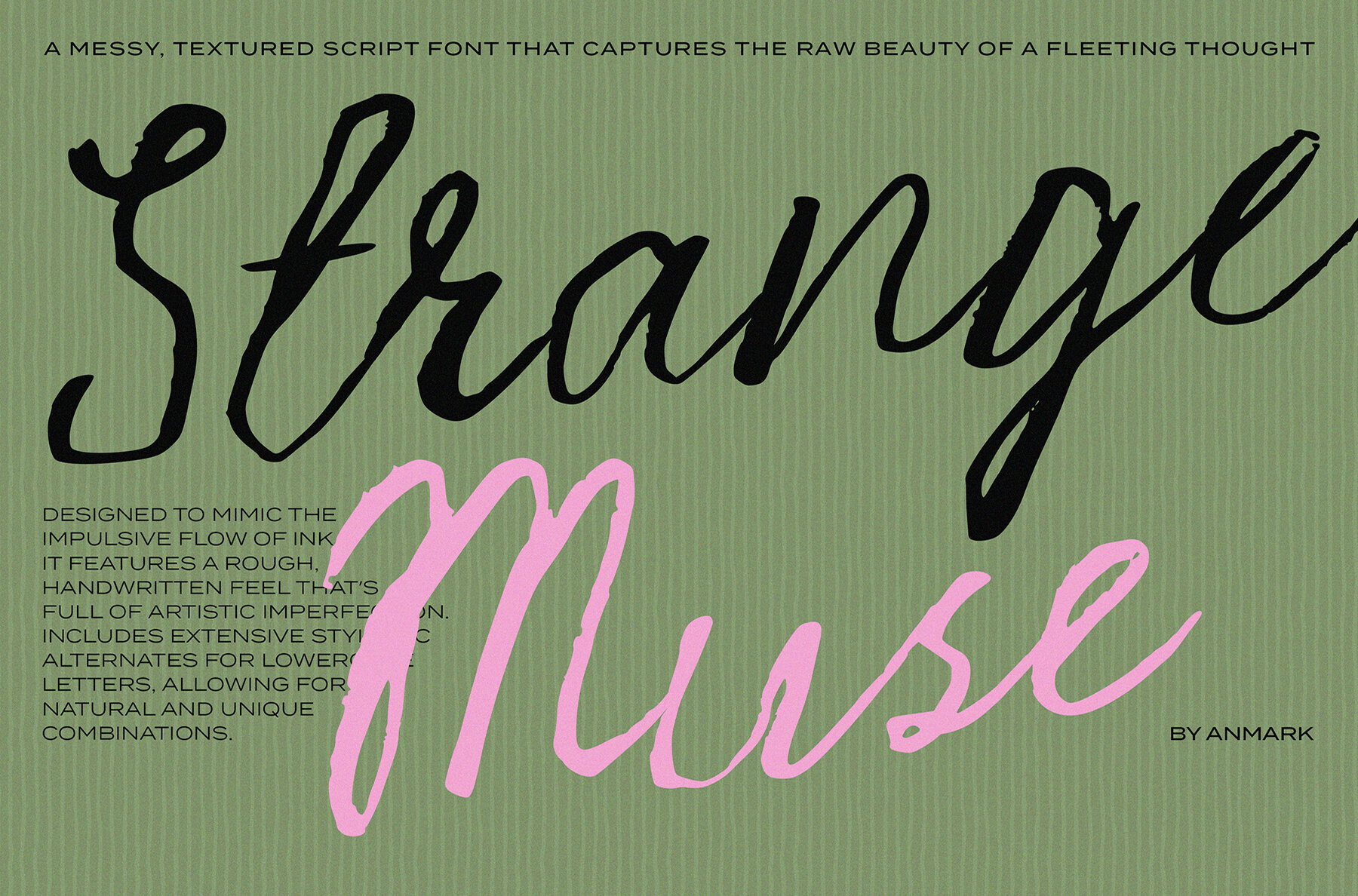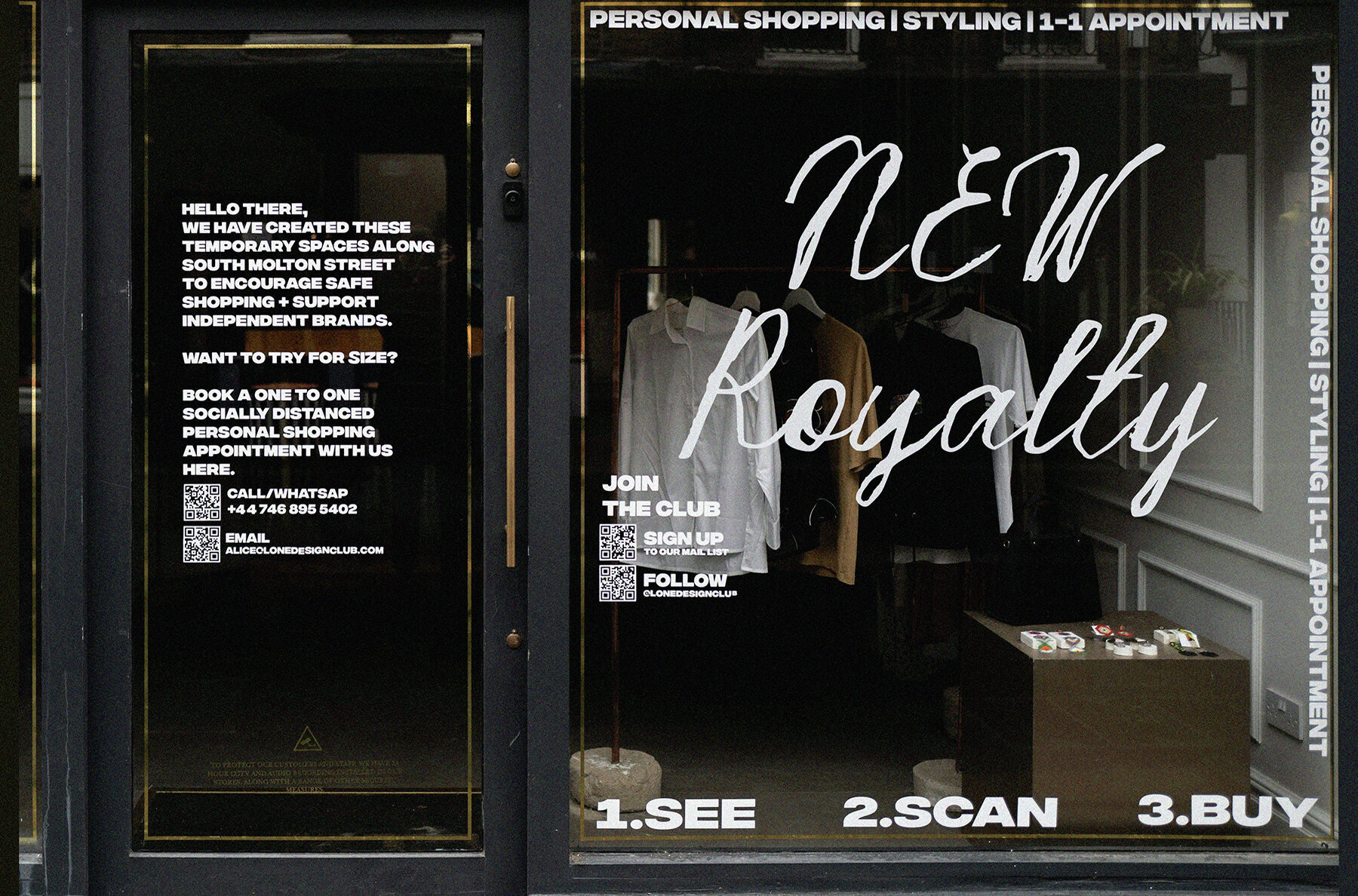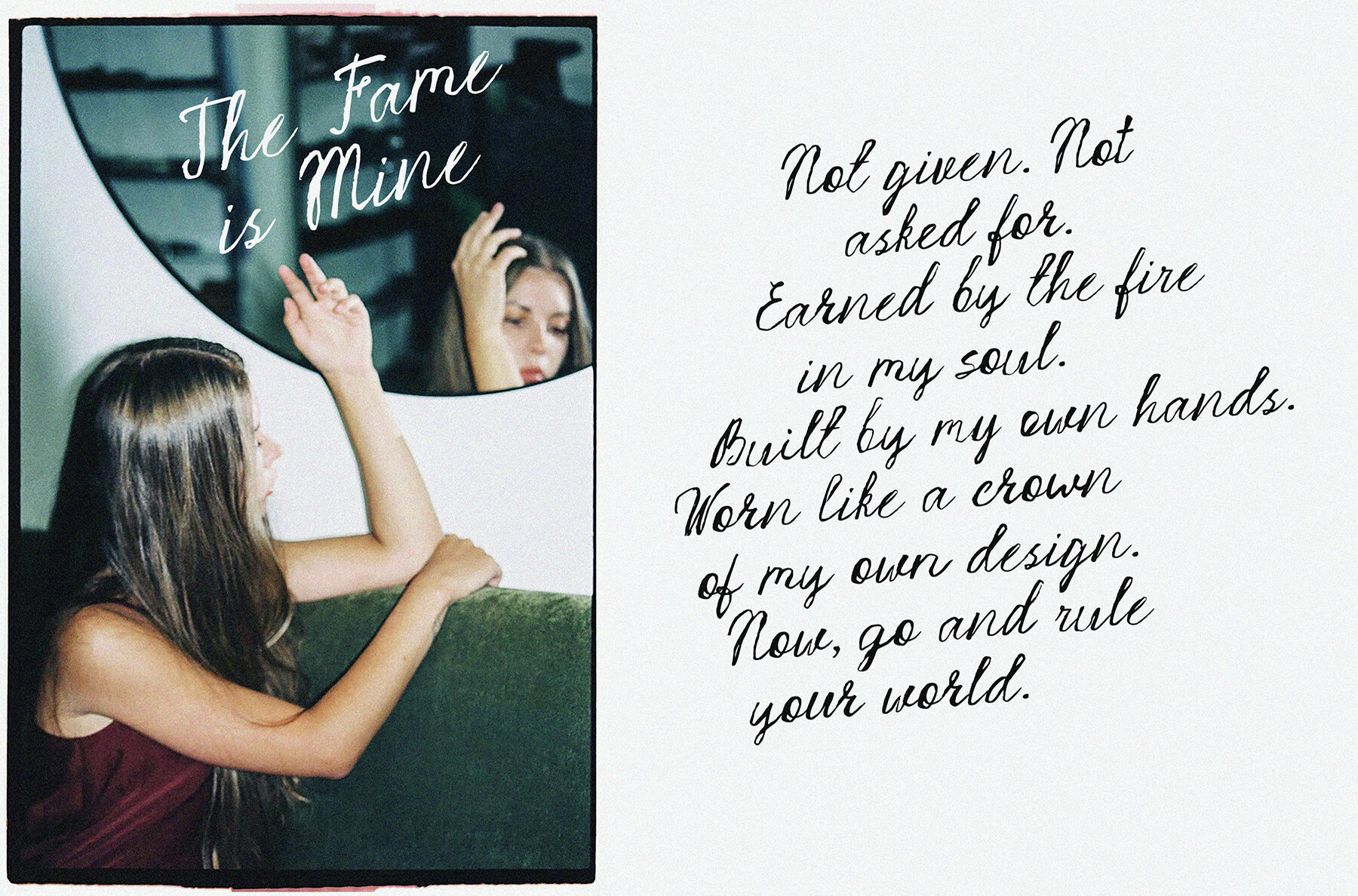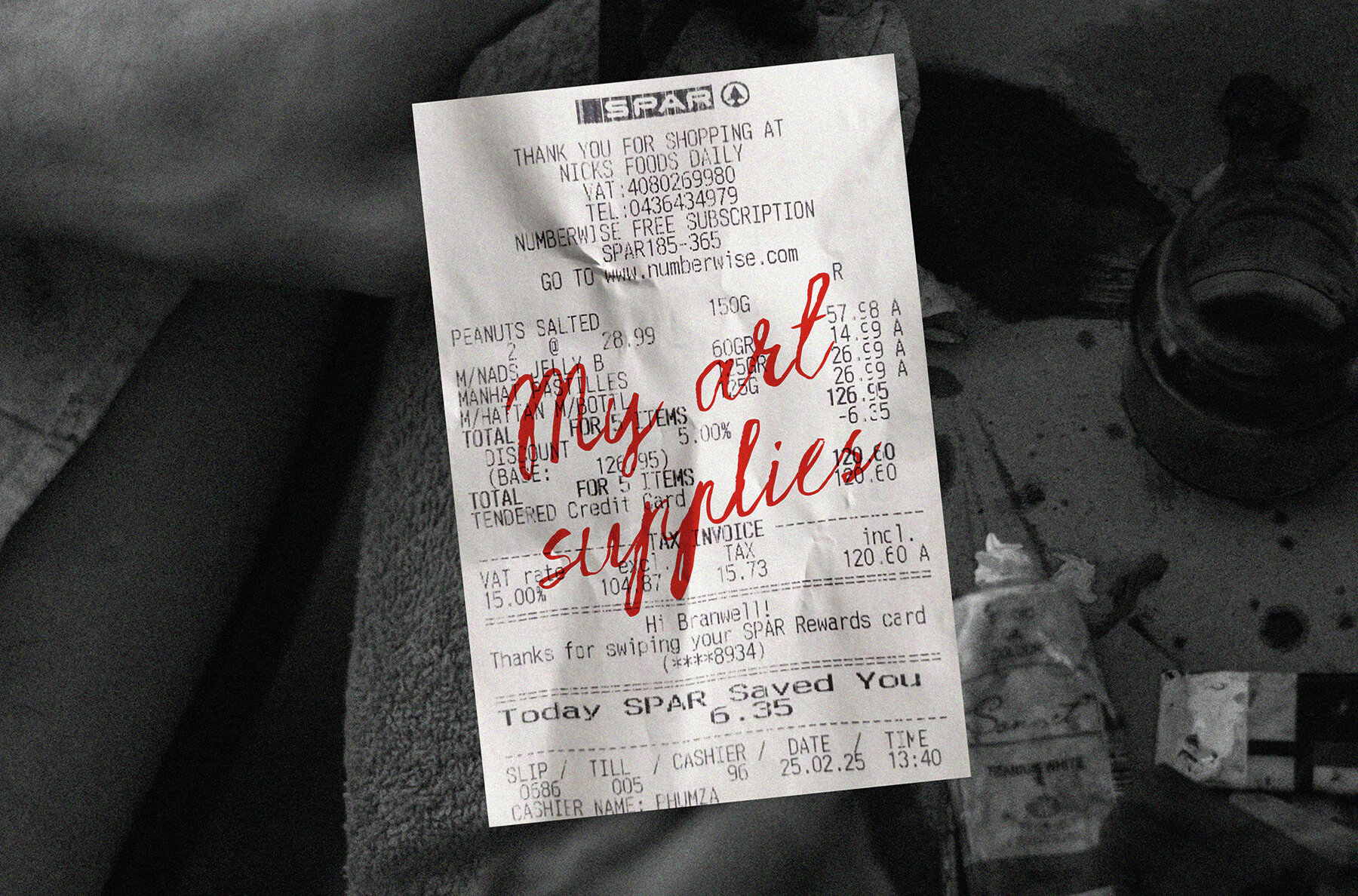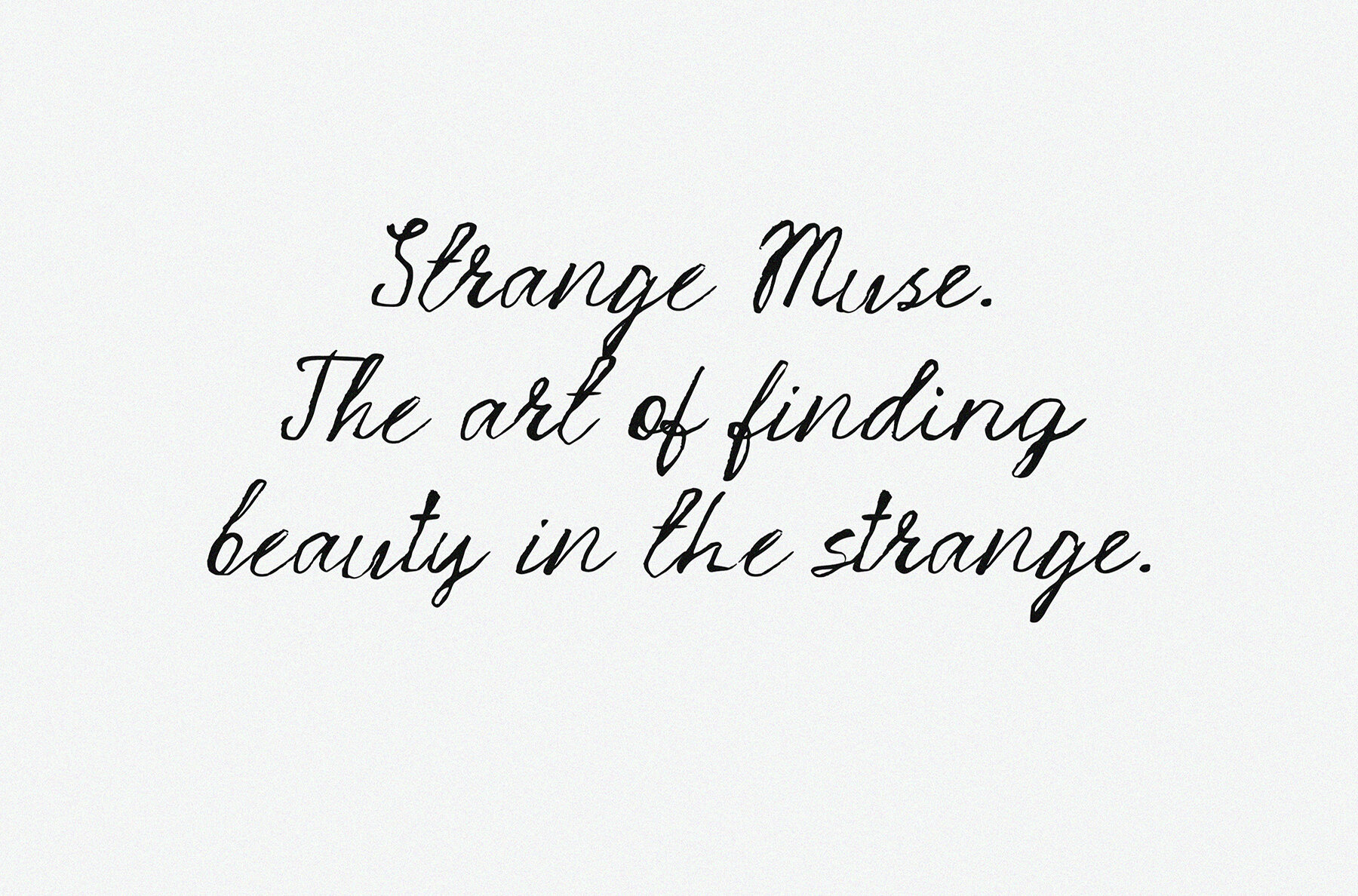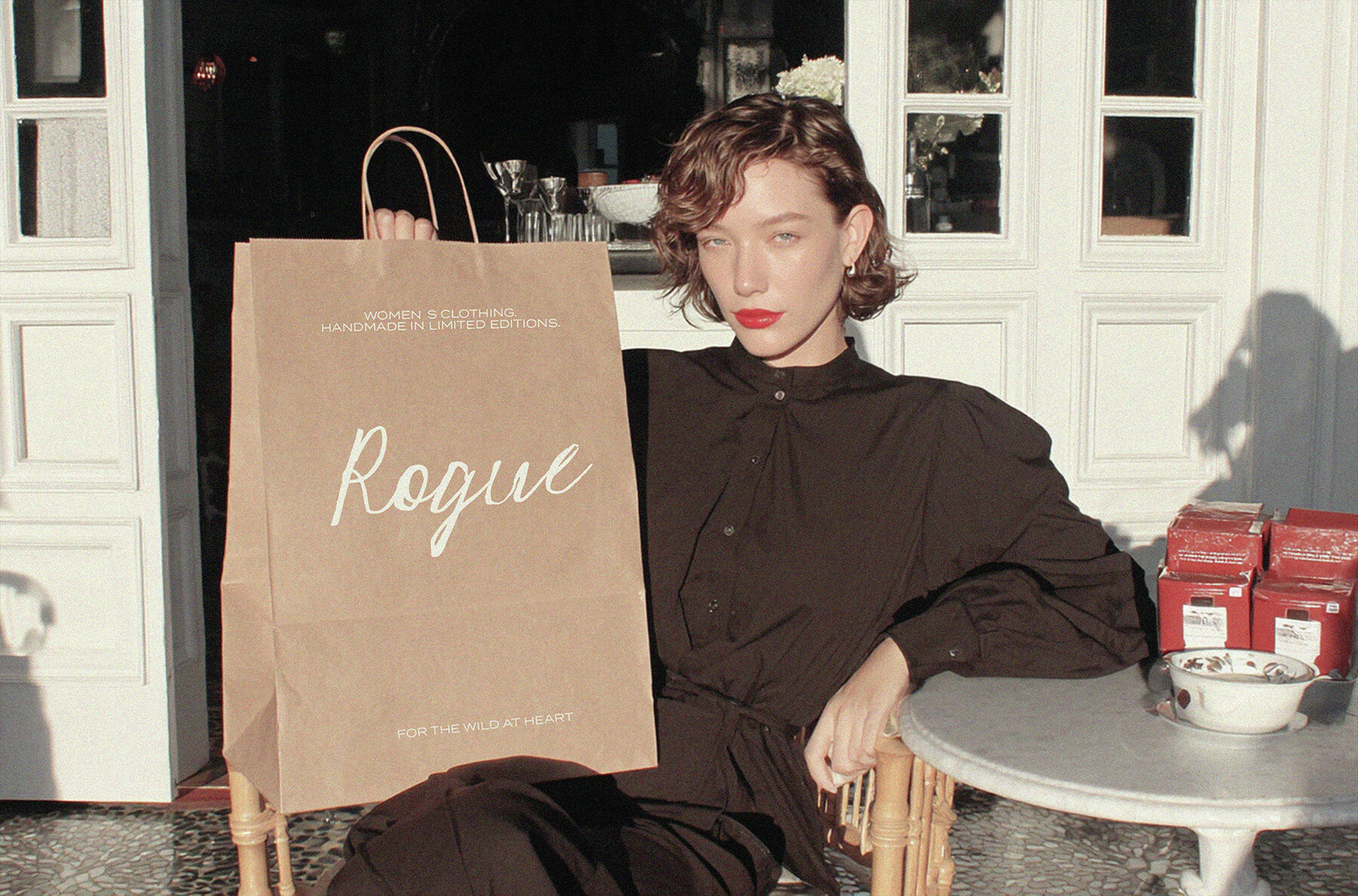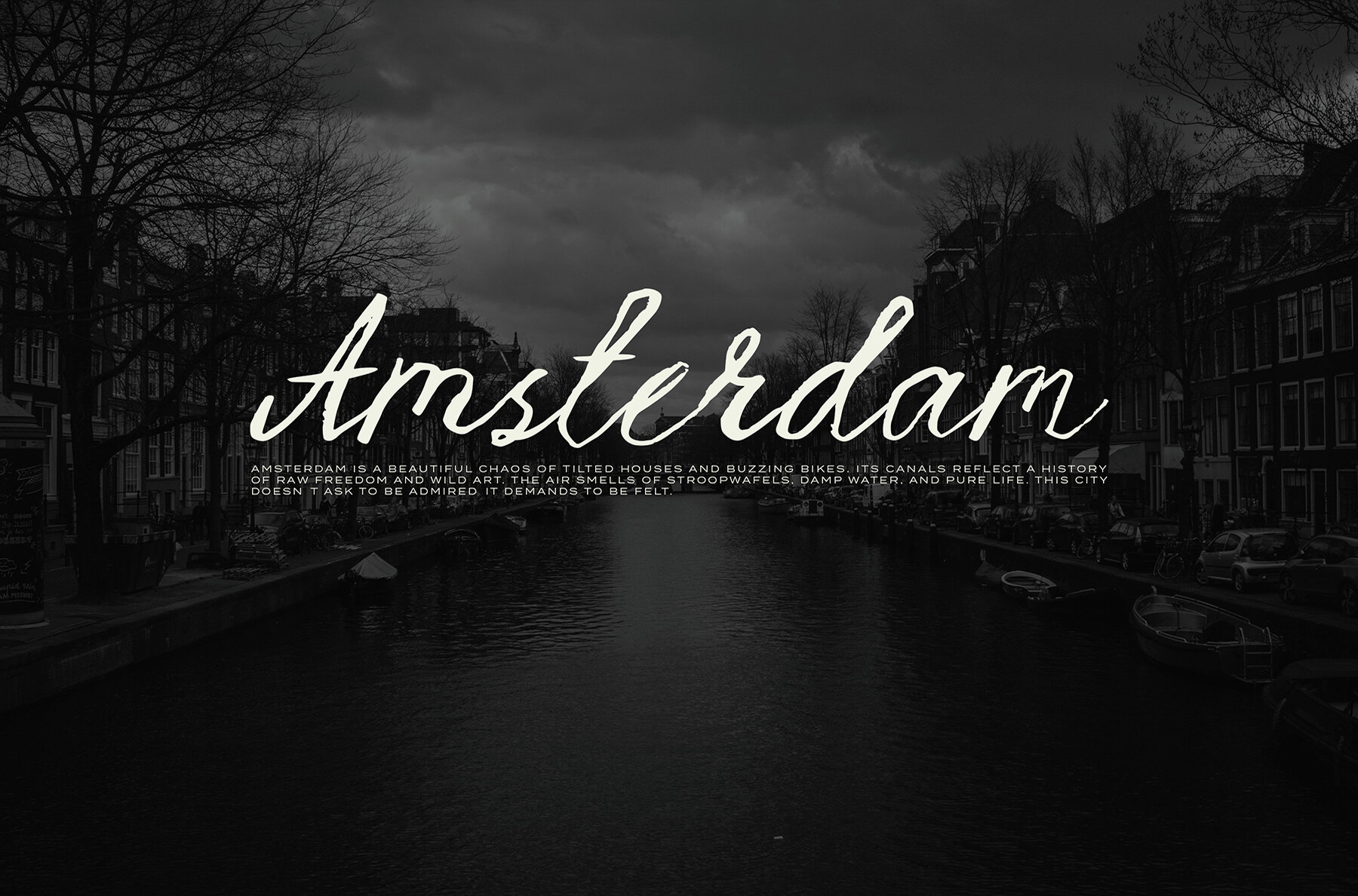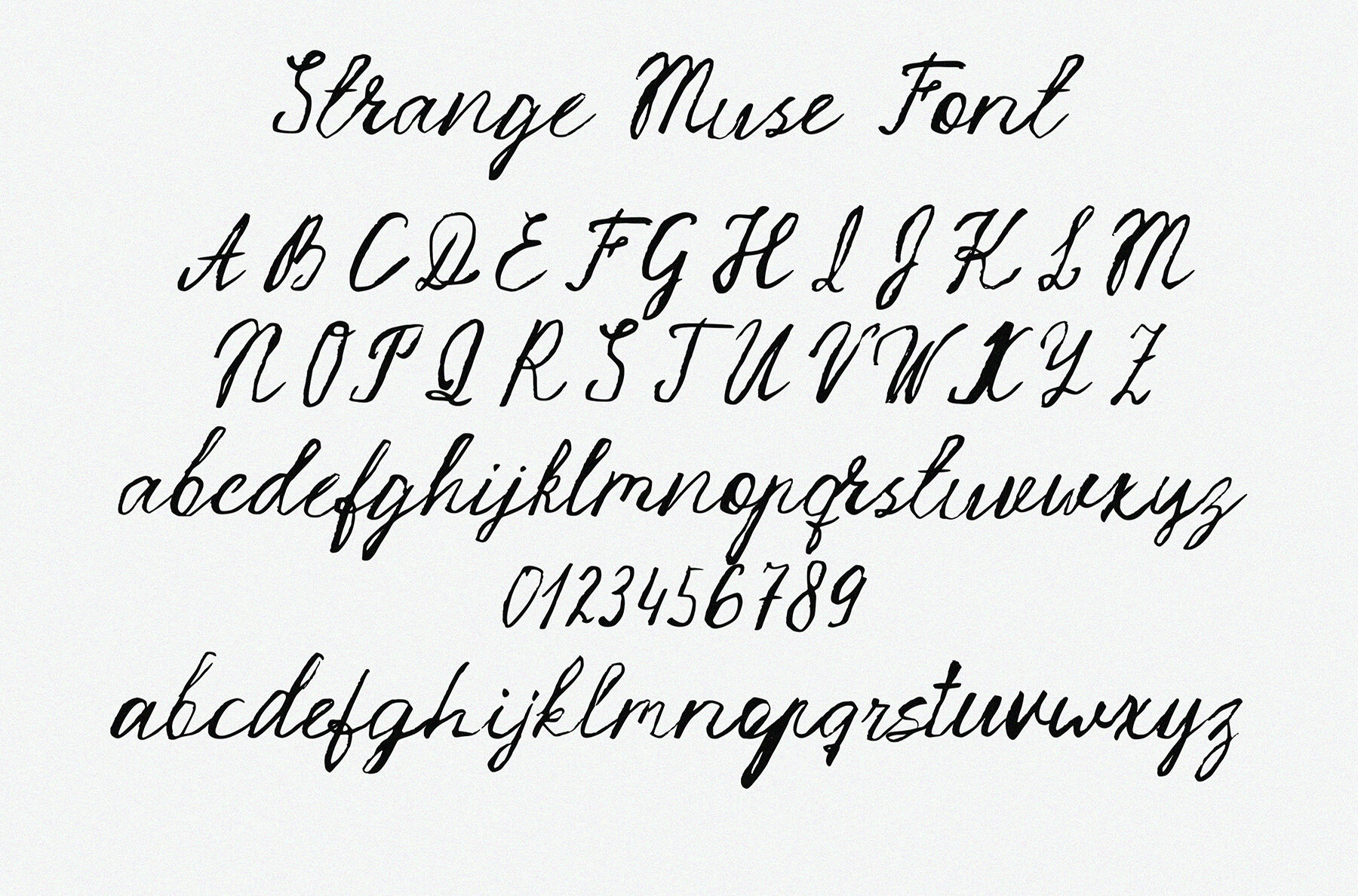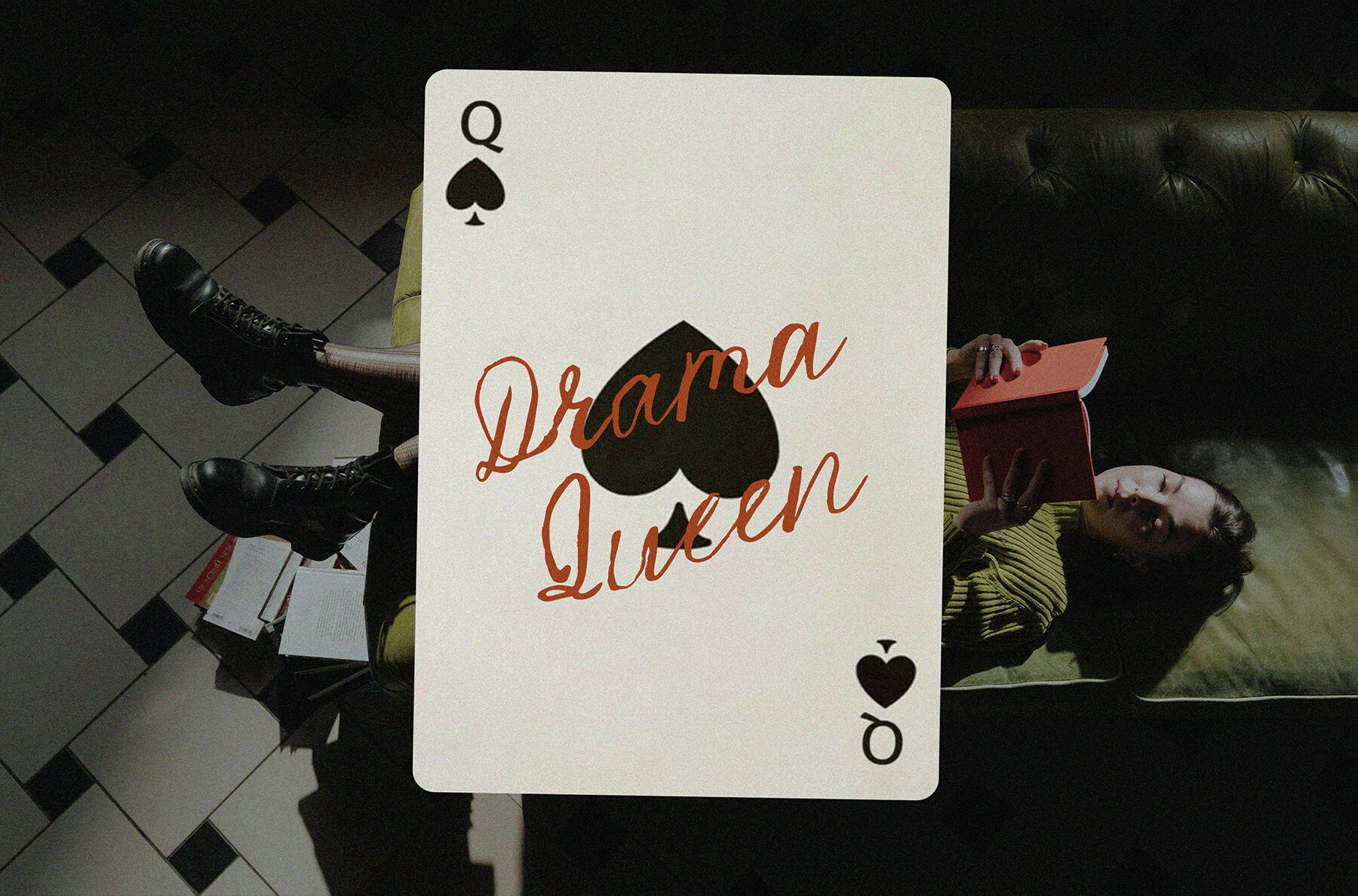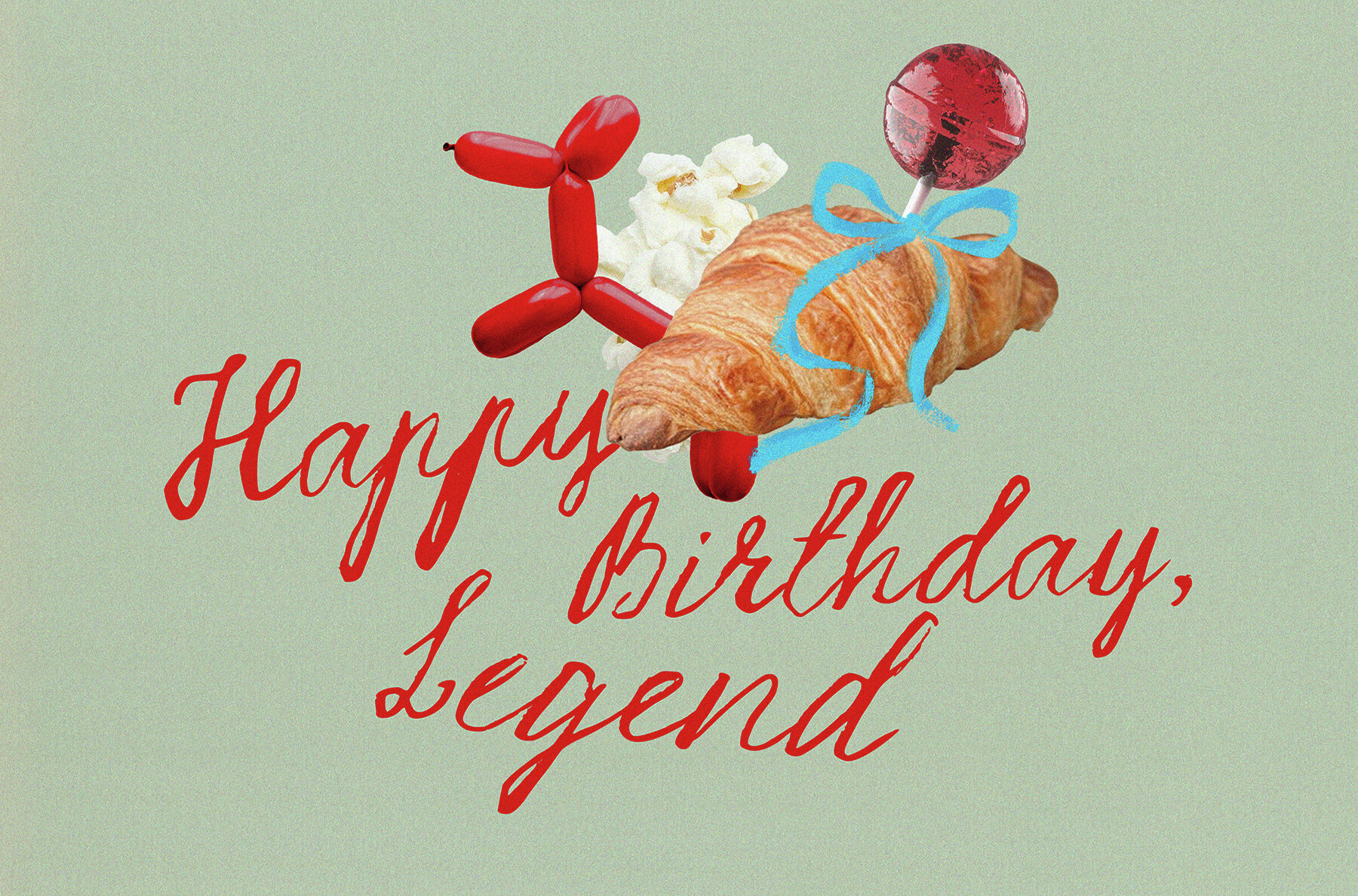
Strange Muse Messy Font
Strange Muse
Infuse your projects with the dynamic flair of Strange Muse, a script font that exudes the raw, emotive quality of inky handwriting. Its rough edges and spontaneous strokes highlight the beauty and authenticity of human expression. With its inclusion of stylistic alternates for lowercase characters, this font allows for endless creative combinations, lending a hand-drawn charm to your design work. It's an ideal choice for those wishing to impart a dramatic, personalized touch.Strange Muse: Messy Handwritten Script Font